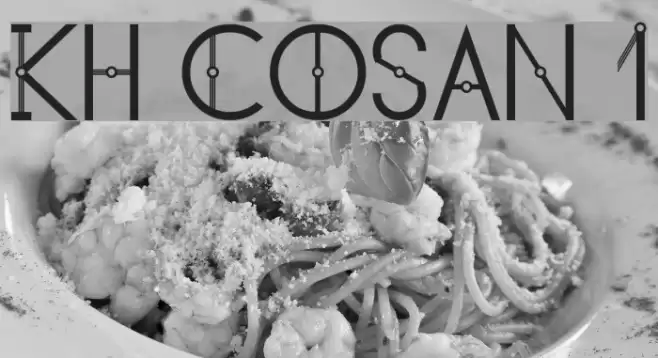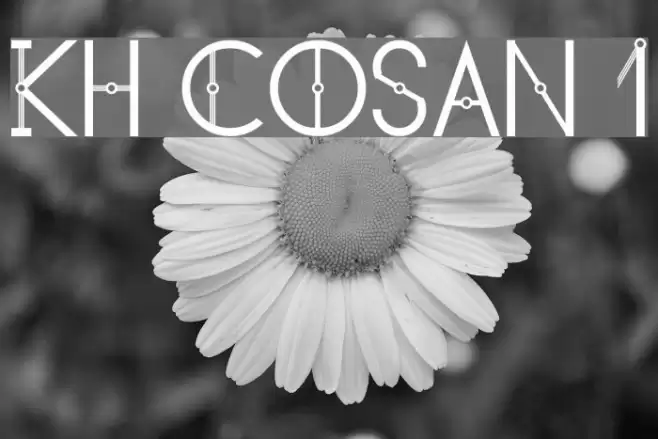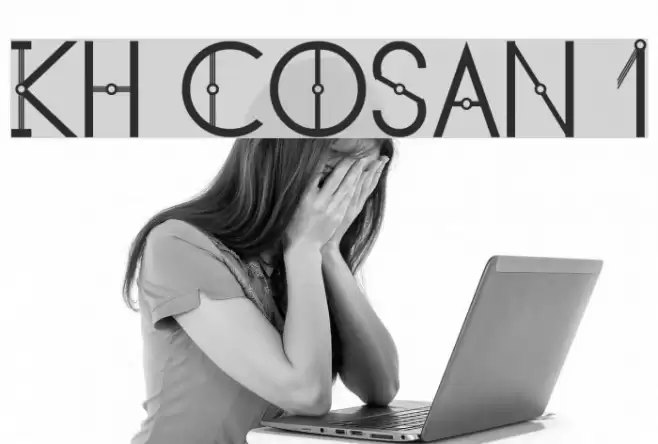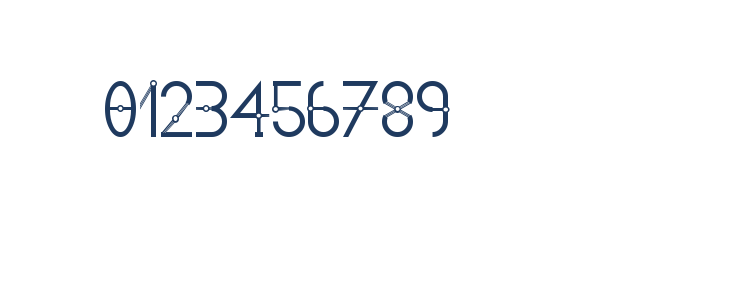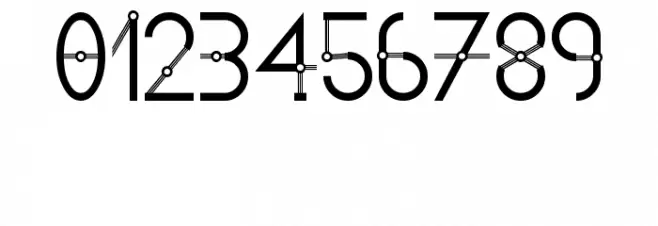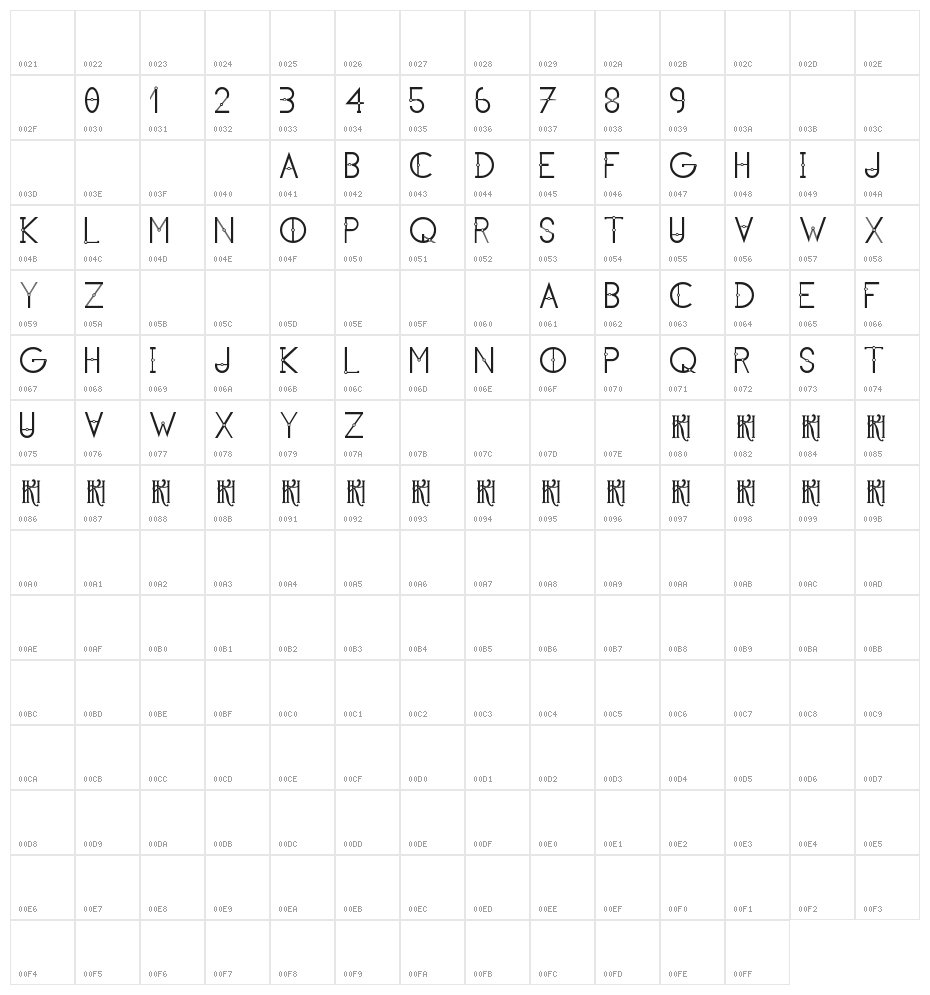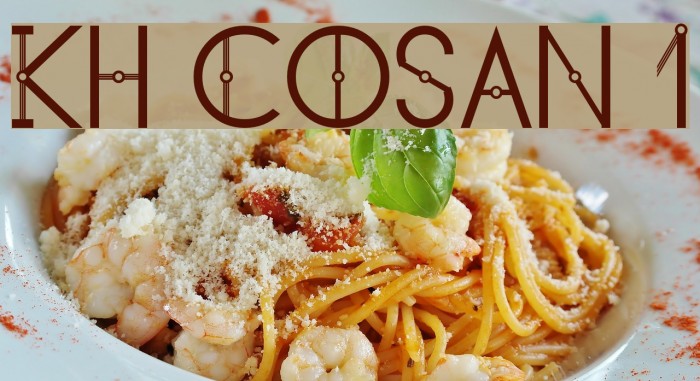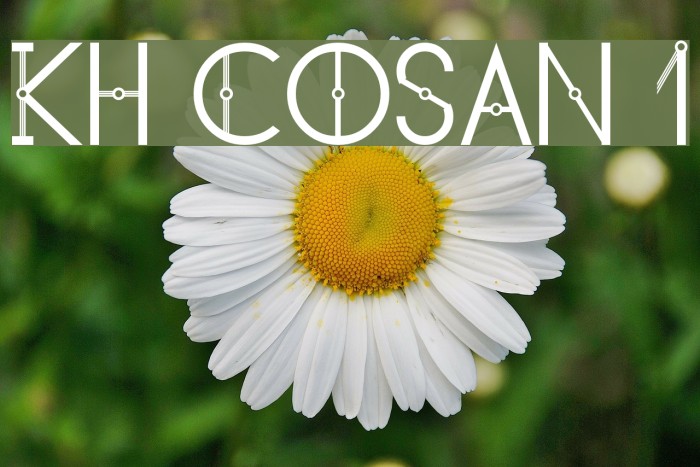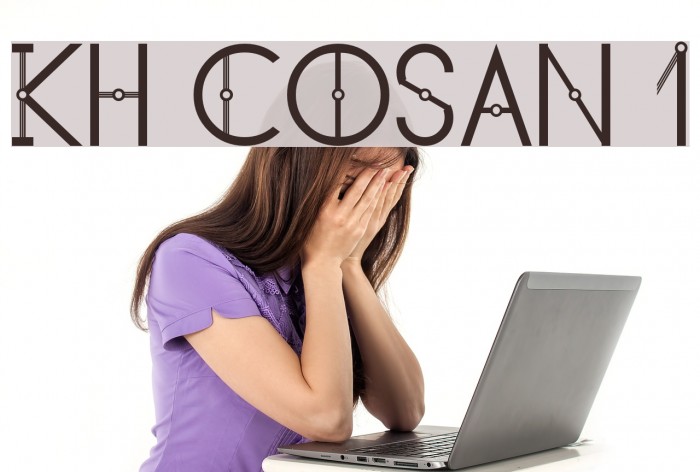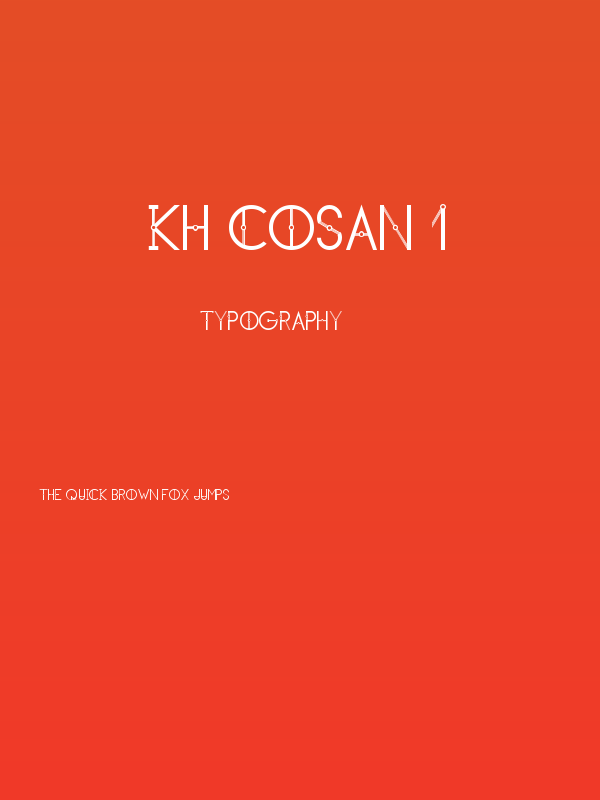
KH Cosan 1 Font
KH Cosan 1 Description
This font features a unique, geometric design with a mechanical and futuristic aesthetic. Each character is constructed with precise lines and circular nodes, creating a sense of connectivity and structure. The uppercase and lowercase letters maintain a consistent style, emphasizing a technical and modern look. The numerals are equally distinctive, incorporating the same circular and linear elements. This font's design is reminiscent of circuit diagrams or technical schematics, making it ideal for projects that require a high-tech or innovative feel.
A geometric, futuristic font with a mechanical and technical aesthetic from Uncategorized fonts.
- Proposed Projects: Ideal for technology branding, sci-fi themed projects, digital interfaces, and educational materials related to engineering or electronics.
- Overall Style: Modern, Futuristic